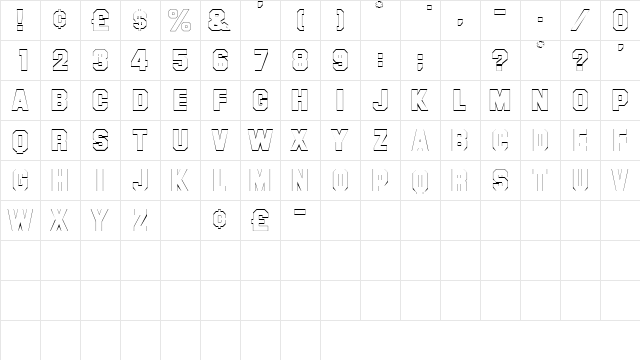
LetterSweaterSansOpenCapsSSK Regular Font Preview
LetterSweaterSansOpenCapsSSK Regular
Design Context for LetterSweaterSansOpenCapsSSK Typeface
LetterSweaterSansOpenCapsSSK is a composed and adaptable typeface that performs quietly and consistently across a wide range of design contexts.